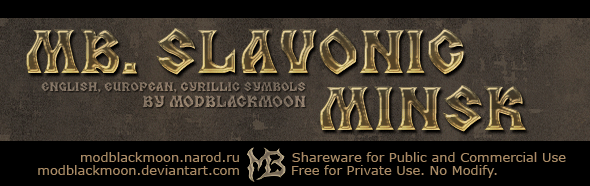
Preview and download MB Slavonic Minsk Font. Created by Irina ModBlackmoon in Gothic Modern styles with Free for personal use license.
INFO: Incl. English, European and Cyrillic letters and Numbers. Kerning pairs are included. Both small and large size are well readable. Manually vectorized from hand-drawing, so may be scaled to extra large size without quality loss. LICENSE: Shareware for any Public and Commercial Use. Free for Private use. No modify! Designed: September 2010. |